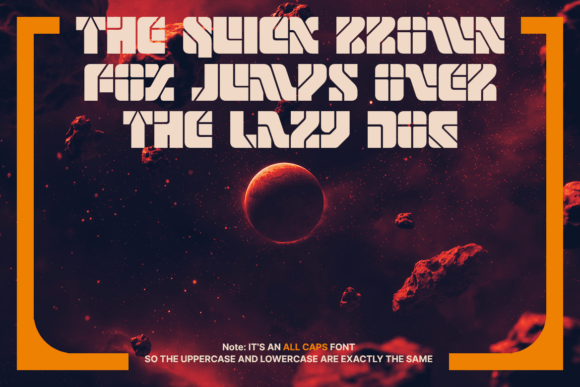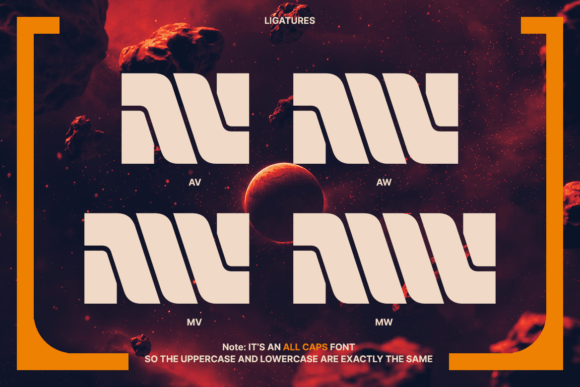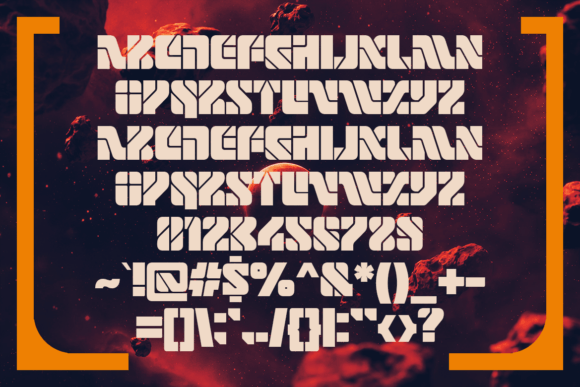
Introduction to Oravino Font
Step into tomorrow with Oravino, a bold and experimental font that pushes the boundaries of futuristic design.
Inspired by the latest sci-fi trends, cutting-edge movies, and immersive game visuals, Oravino brings a high-tech, otherworldly vibe to your projects .
Key Features of Oravino Font